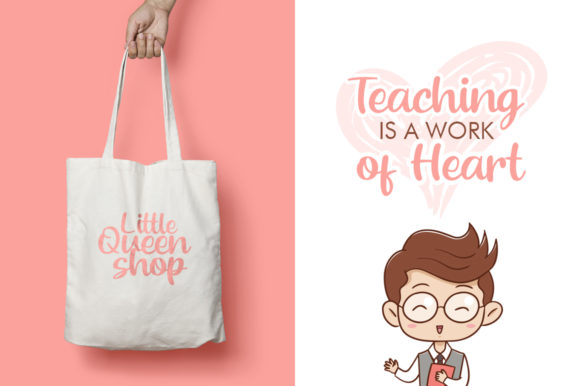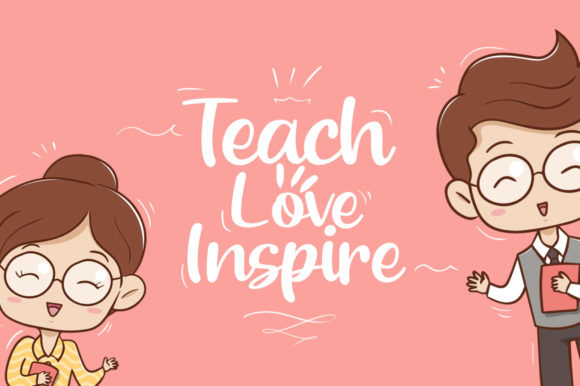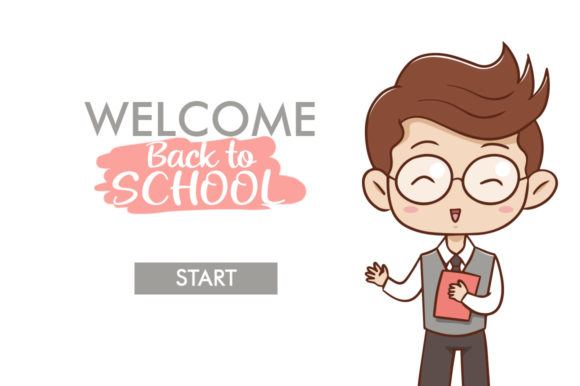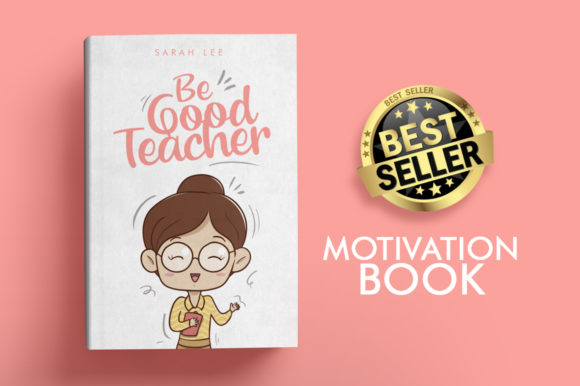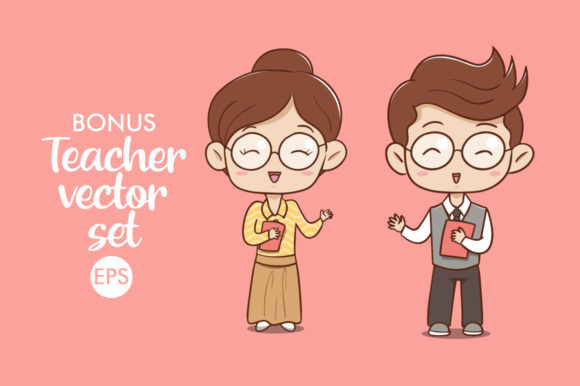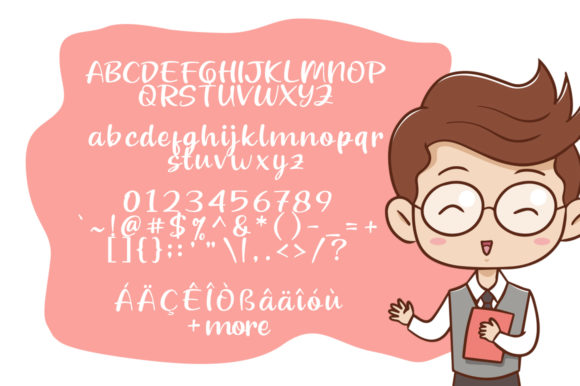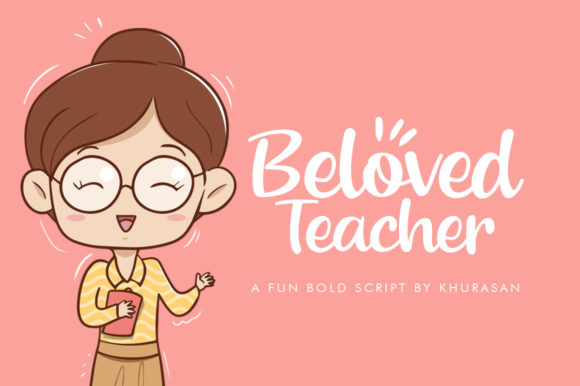
Discover the Charm of Beloved Teacher Font: A Joyful Handwritten Delight
Are you a designer, crafter, or educator looking for a font that embodies warmth, elegance, and playfulness? Look no further than the Beloved Teacher Font, a stunning handwritten font that is sure to capture your heart. With its joyful feel and adorable charm, this font is perfect for a wide range of creative projects, from educational materials to digital crafts.
The Story Behind Beloved Teacher Font
Beloved Teacher Font is a beautiful, handcrafted font that is designed to evoke a sense of love, care, and dedication. Its elegant, yet playful design makes it an ideal choice for projects that require a personal touch. Whether you’re creating educational resources, greeting cards, or social media graphics, this font is sure to add a touch of warmth and personality to your work.
Key Features of Beloved Teacher Font
• Handwritten with love: Beloved Teacher Font is a genuine handwritten font, crafted with care and attention to detail to ensure a unique and personal feel.
• Elegant and adorable: This font combines elegance and playfulness, making it perfect for projects that require a touch of sophistication and whimsy.
• Joyful feel: The font’s joyful feel makes it ideal for creating uplifting and inspiring content that will engage and delight your audience.
• High-quality design: Beloved Teacher Font is designed to the highest standards, ensuring crisp, clear, and professional-looking text.
Beloved Teacher Font is a versatile font that is perfect for a wide range of creative projects, including:
• Educational materials: Create engaging and interactive educational resources, such as worksheets, activity sheets, and lesson plans.
• Digital crafts: Add a personal touch to your digital crafts, such as printables, planners, and journals.
• Greeting cards and invitations: Create beautiful and heartfelt greeting cards and invitations for special occasions.
• Social media graphics: Add a touch of personality to your social media graphics, such as quote graphics, motivational posts, and announcements.
Tips for Using Beloved Teacher Font
To get the most out of Beloved Teacher Font, here are a few tips:
• Use it for headings and titles: The font’s elegant and playful design makes it perfect for headings and titles.
• Mix it with other fonts: Combine Beloved Teacher Font with other fonts to create a unique and visually appealing design.
• Experiment with colors: Try out different colors and color combinations to add depth and interest to your design.
Beloved Teacher Font is a beautiful and versatile handwritten font that is sure to capture your heart. With its joyful feel, elegant design, and adorable charm, it’s perfect for a wide range of creative projects. Whether you’re a designer, crafter, or educator, this font is sure to add a touch of warmth and personality to your work. So why wait? Fall in love with Beloved Teacher Font today and discover a world of creative possibilities!